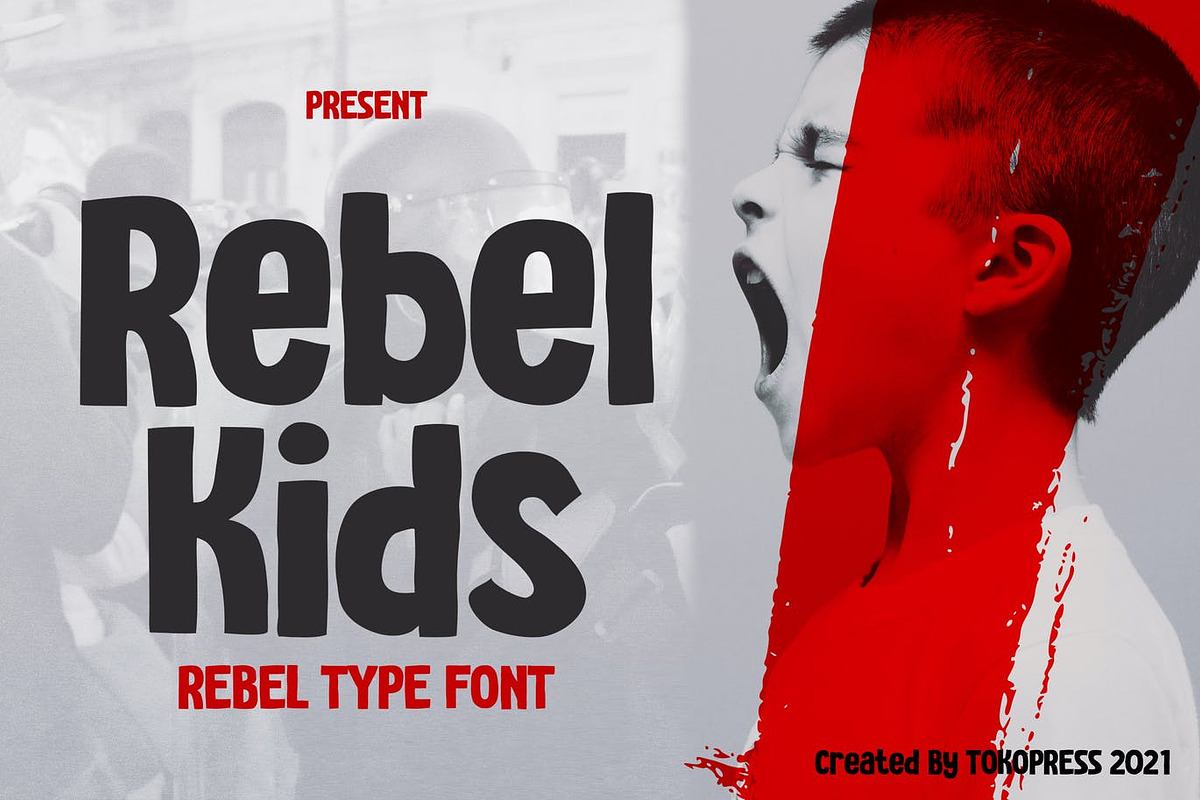
Rebel Kids - Modern Rebel Font is perfect for youth-oriented branding, skateboard graphics, rebellious fashion labels, punk rock band promotions, alternative music posters, edgy streetwear designs, teen magazine layouts, youth culture campaigns, underground event promotions, gaming brand materials, extreme sports graphics, and counter-culture design projects.
Rebel Kids - Modern Rebel Font is exciting because it embodies the fearless spirit and unapologetic attitude of youth rebellion through bold, unconventional letterforms that challenge traditional design rules and celebrate individuality. This dynamic typeface features edgy character shapes with rebellious energy that speaks directly to young audiences who value authenticity, freedom, and creative expression. The font's defiant aesthetic makes every message feel like a call to action for those who dare to be different.
Rebel Kids - Modern Rebel Font includes comprehensive font families: Regular Rebel Style, Bold Defiant Weight, Light Underground Touch, Medium Attitude Balance, Italic Rebellious Slant, Condensed Punk Format, Extended Riot Width, Distressed Street Effects, Clean Modern Alternative, and Special Anarchy Symbols, providing extensive creative possibilities for youth-focused and alternative design projects.
This revolutionary typography solution transforms ordinary communications into powerful statements of youth rebellion through its authentic street-inspired aesthetic and defiant design language. Rebel Kids - Modern Rebel Font Free Download enables designers and youth brands to access premium rebellious typography that instantly adds attitude, authenticity, and youthful energy to any creative project. The font's carefully crafted edginess ensures maximum impact while maintaining readability and professional quality standards.
Youth brands, alternative music labels, and counter-culture businesses trust Rebel Kids - Modern Rebel Font for its ability to communicate authenticity, rebellion, and youth empowerment to audiences seeking genuine alternative expressions and non-conformist aesthetics. The typeface's bold construction performs exceptionally well across various applications, from intimate underground zines to large-scale youth marketing campaigns. Its extensive character support includes multilingual capabilities and rebellious design elements that enhance alternative brand presentations.
The creative inspiration behind Rebel Kids - Modern Rebel Font draws from punk rock culture, street art movements, and the eternal spirit of youth rebellion that challenges authority and embraces creative freedom. This rebellion-focused approach creates a font that feels genuinely alternative while maintaining contemporary relevance across different youth subcultures and rebellious brand expressions.
Whether creating youth fashion brands, alternative music promotions, or counter-culture marketing materials, this modern rebel font delivers exceptional results that resonate with audiences seeking authentic rebellion and creative freedom. Download Rebel Kids - Modern Rebel Font today and discover how premium rebellious typography can transform your design projects into powerful expressions of youth attitude, creative defiance, and the unstoppable spirit of those who refuse to conform.